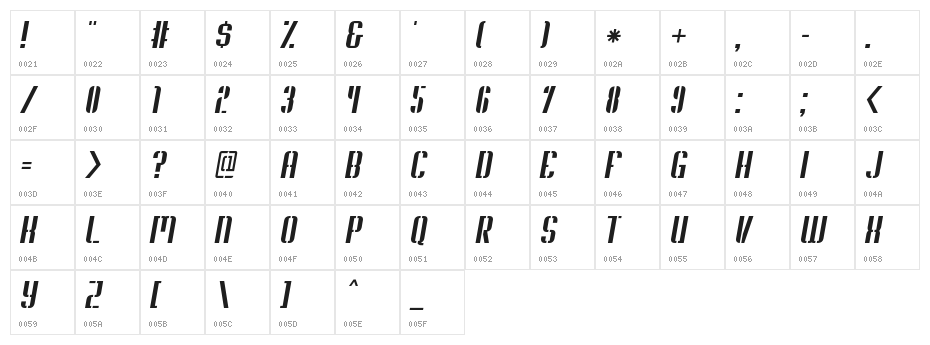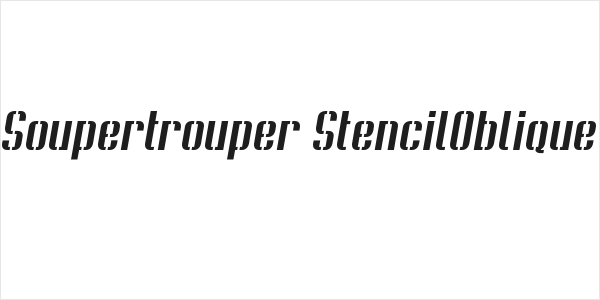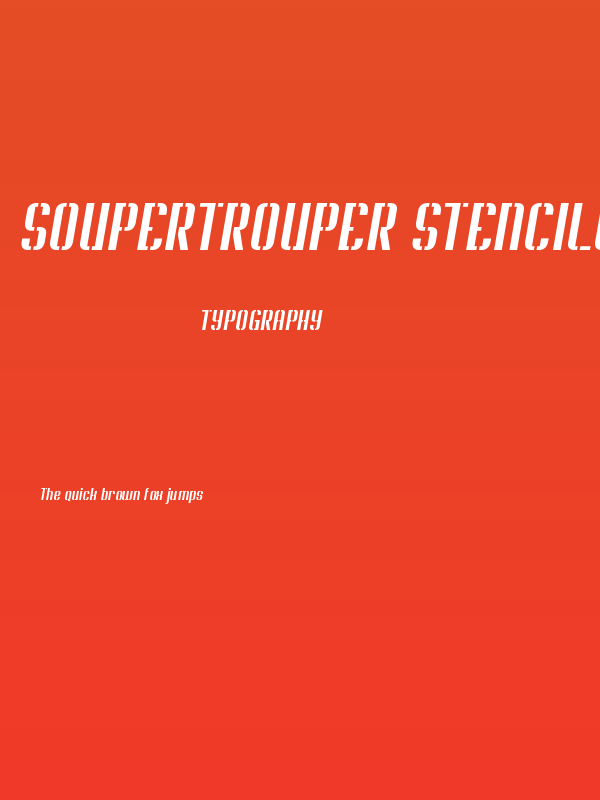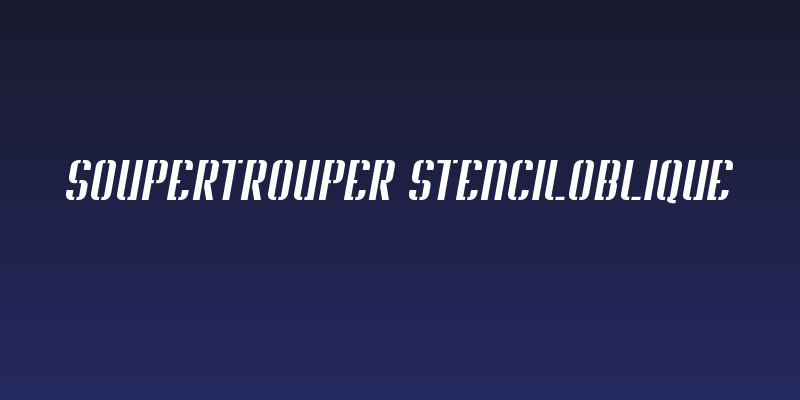
Soupertrouper StencilOblique Font
Soupertrouper StencilOblique Description
This font features a bold and dynamic stencil design with an oblique slant, giving it a modern and industrial feel. The characters are sharply cut with distinct gaps, typical of stencil fonts, which adds a rugged and utilitarian aesthetic. The uppercase and lowercase letters maintain a consistent style, with the oblique angle providing a sense of motion and urgency. The numerals and special characters are equally bold, ensuring readability and impact. This font is ideal for projects that require a strong visual presence, such as posters, signage, and branding materials.
| Use Case | Headlines, Logos, Signage |
| Proposed Projects | Ideal for posters, signage, branding, and any project needing a strong visual impact. |